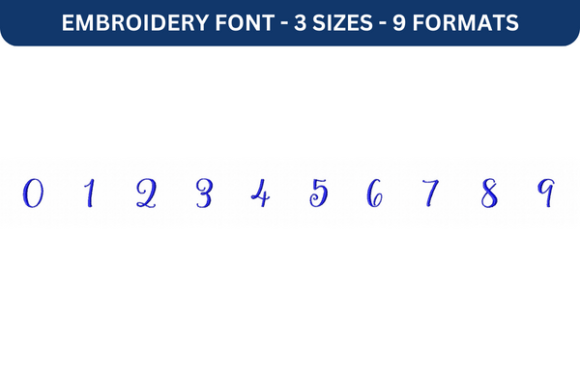
Storybook Font Number 0 to 9
As an embroidery designer with years of experience, I've seen countless fonts come and go. But one that consistently stands out is the Storybook Font Number 0 to 9. This machine embroidery design offers a unique blend of charm and versatility that makes it ideal for seasonal and holiday product use. Whether you're crafting handmade gifts or building a limited-time collection, this font has the potential to elevate your work in meaningful ways.
A First Impression That Speaks Volumes
The Storybook Font Number 0 to 9 immediately evokes a sense of nostalgia and whimsy. Its delicate curves and soft edges give it a warm, inviting feel that aligns perfectly with cozy holiday themes. The font’s decorative style is elegant yet approachable, making it suitable for both rustic and modern designs. Whether you’re creating a personalized gift for a child or a sophisticated home decor piece, this font adds a touch of character that feels authentic and heartfelt.
One of the standout features is the level of detail. Each number is crafted with care, ensuring that even small elements like flourishes and serifs are clearly visible. This attention to detail enhances the visual appeal of any project, especially when used on items like embroidered patches or pillow covers.
Real-World Applications for Holiday Selling
In my experience, the Storybook Font Number 0 to 9 performs exceptionally well in real-world selling situations. It’s perfect for gift bundles, where customers appreciate the personalization and uniqueness of handmade items. For Etsy sellers, this font can be a game-changer—offering a fresh, creative option that stands out among generic designs.
When it comes to craft fair displays, the font’s visual appeal helps draw attention. Its readability and aesthetic make it ideal for tote bag designs, kitchen towel embroidery, and sweatshirt embroidery. Whether you’re showcasing a limited edition apparel line or family matching items, this font adds a cohesive and professional look that resonates with buyers.
For small shop products, the Storybook Font Number 0 to 9 also shines. It works well with printable mockups and social media previews, helping to build anticipation and engagement during the holiday shopping season. Its ability to evoke emotion makes it a strong choice for personalized gifts and sentimental items like baby clothes or holiday ornaments.
Where to Use It Carefully
While the Storybook Font Number 0 to 9 is versatile, there are some situations where caution is needed. On small hoop sizes, the intricate details may become less defined, so it’s best to adjust the scale accordingly. Tiny lettering can also be challenging, especially if the design requires high stitch density.
Items with thick towels or dark fabric may require additional stabilizer to ensure the design sits properly on the surface. Metallic thread can add a luxurious touch, but it’s important to test how the font looks in different thread colors. Stretchy garments and curved caps might need extra planning to avoid distortion during stitching.
Impact on Seasonal Appeal and Customer Emotion
The Storybook Font Number 0 to 9 has a significant impact on seasonal appeal. It creates a sense of warmth and familiarity that resonates with holiday shoppers looking for meaningful, handcrafted items. Its nostalgic tone can evoke memories and emotions, making it an excellent choice for personalized gifts and family-oriented products.
From a business perspective, this font enhances product value by offering a unique and high-quality option that customers are willing to pay for. It also boosts customer trust, as the design’s clarity and consistency reflect professionalism. When used effectively, it can drive engagement, increase sales, and support brand consistency across a seasonal collection.
Practical Tips for Embroidery Designers
Before finalizing any project with the Storybook Font Number 0 to 9, I recommend testing thread colors on both light and dark fabric. This ensures the design looks its best regardless of the material. Checking stitch density is also crucial—especially for detailed areas—to prevent puckering or distortion.
Confirming the correct hoop size and using the right stabilizer can make a big difference in the final outcome. For fabric texture, consider how the font interacts with different materials, from smooth cotton to textured linen. Creating realistic mockups helps clients visualize the finished product, while reviewing small details after stitching ensures quality control.
Planning matching color palettes and confirming commercial licensing before selling finished products is essential for compliance and peace of mind. These steps help maintain the integrity of your work and protect your business.
Final Thoughts on Storybook Font Number 0 to 9
Overall, the Storybook Font Number 0 to 9 is a valuable addition to any embroidery designer’s toolkit. Its ability to adapt to various projects, from holiday decorations to everyday items, makes it a flexible and reliable choice. Whether you're an Etsy seller, a craft fair vendor, or a small business owner, this font offers the creativity and functionality needed to stand out in a competitive market.
By understanding its strengths and limitations, you can maximize its potential and create beautiful, meaningful products that resonate with customers during the holiday season and beyond.